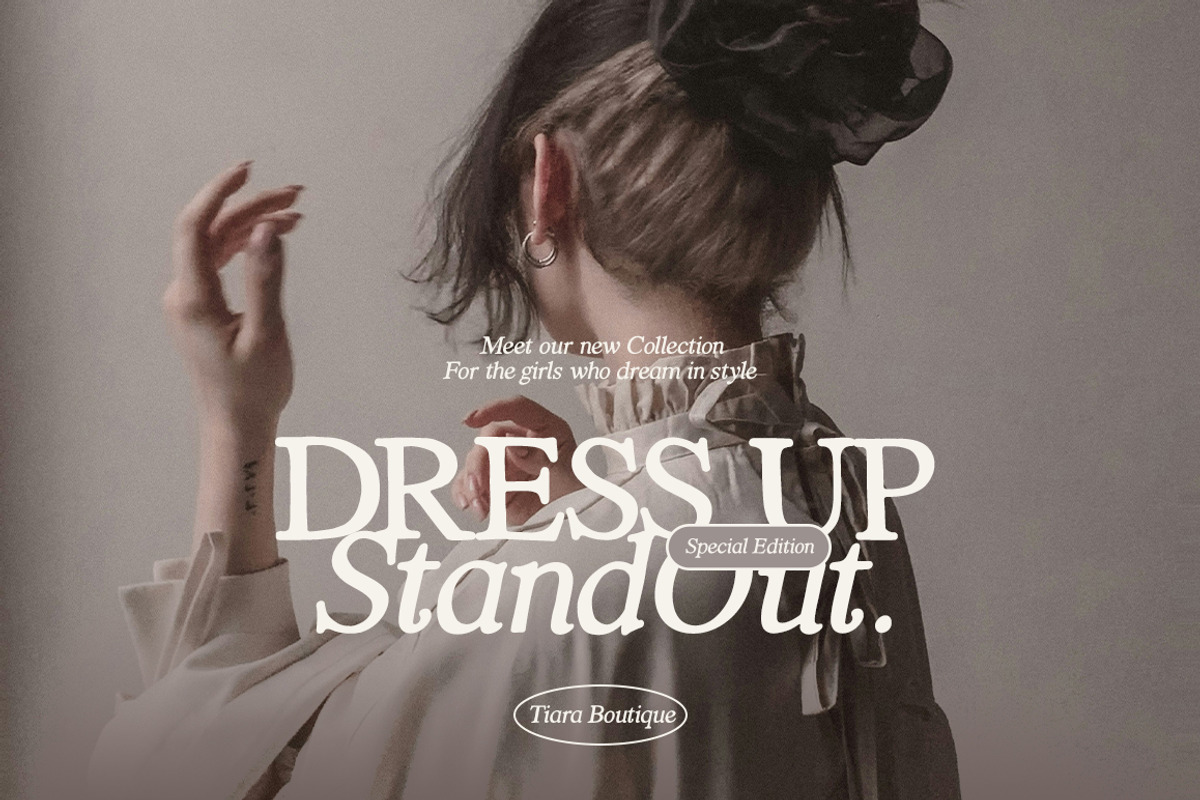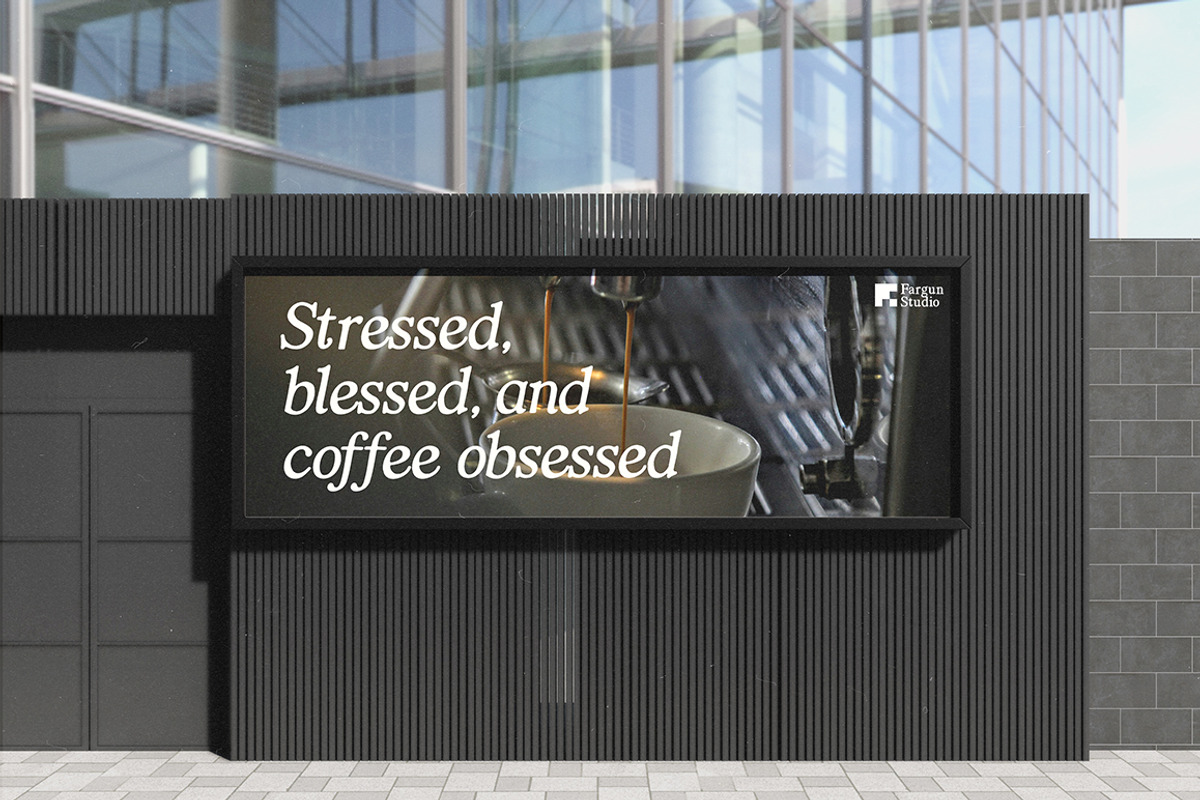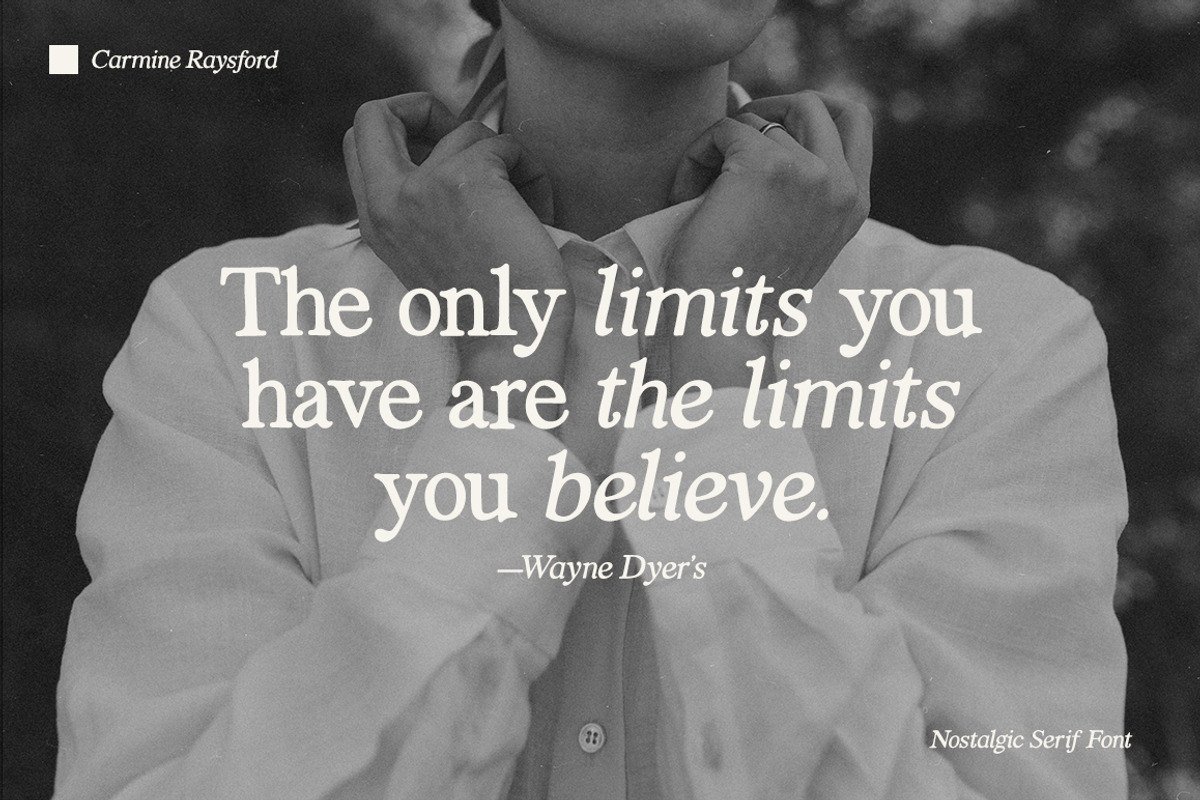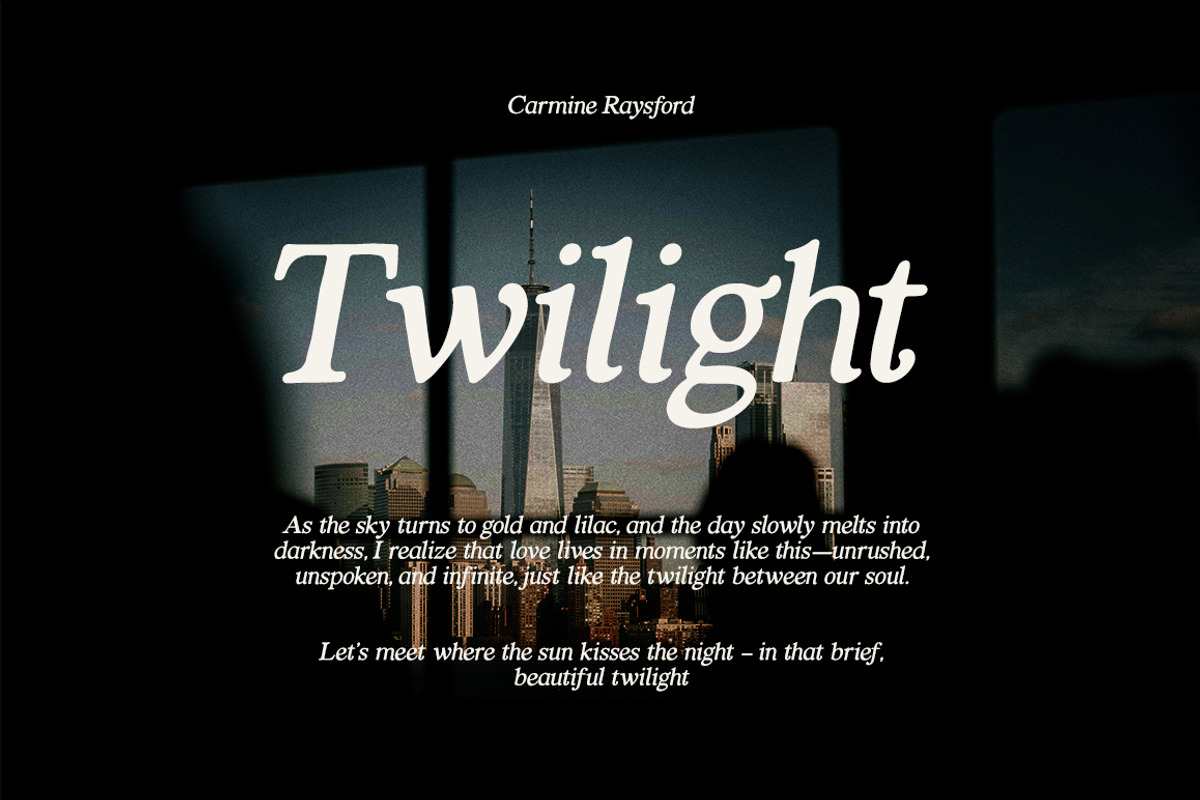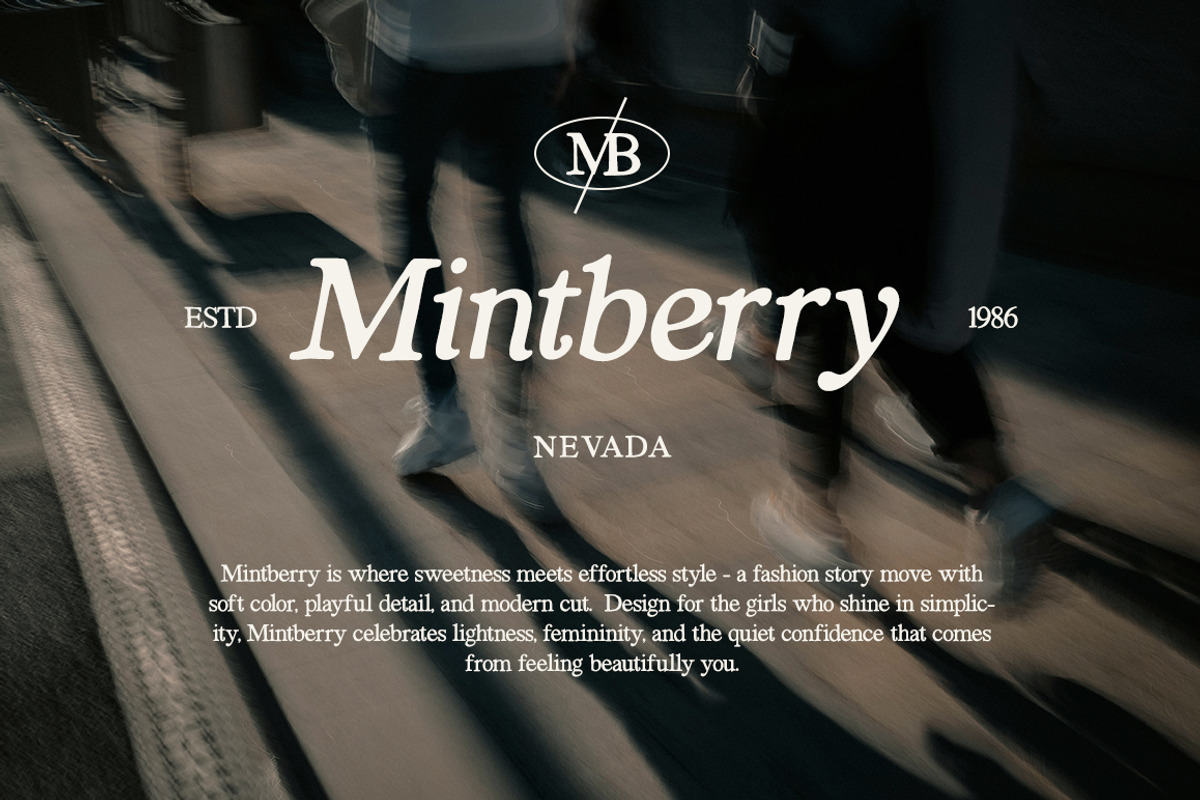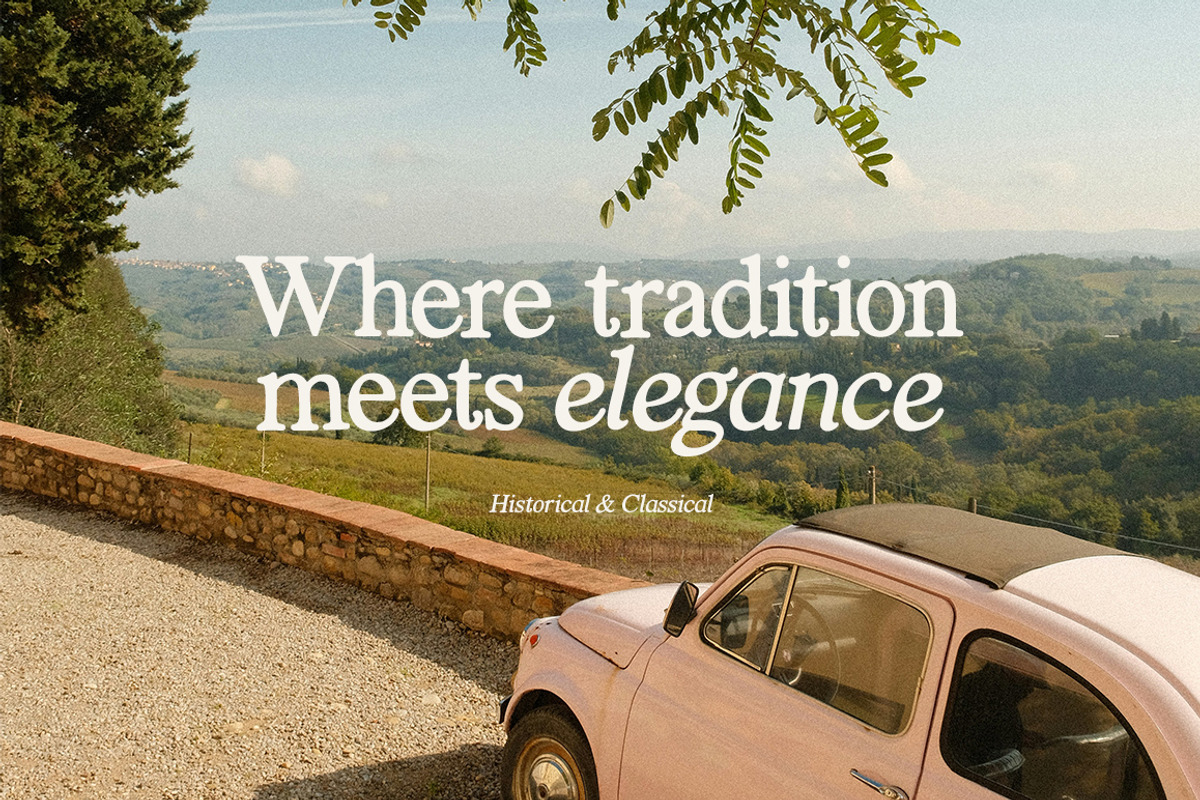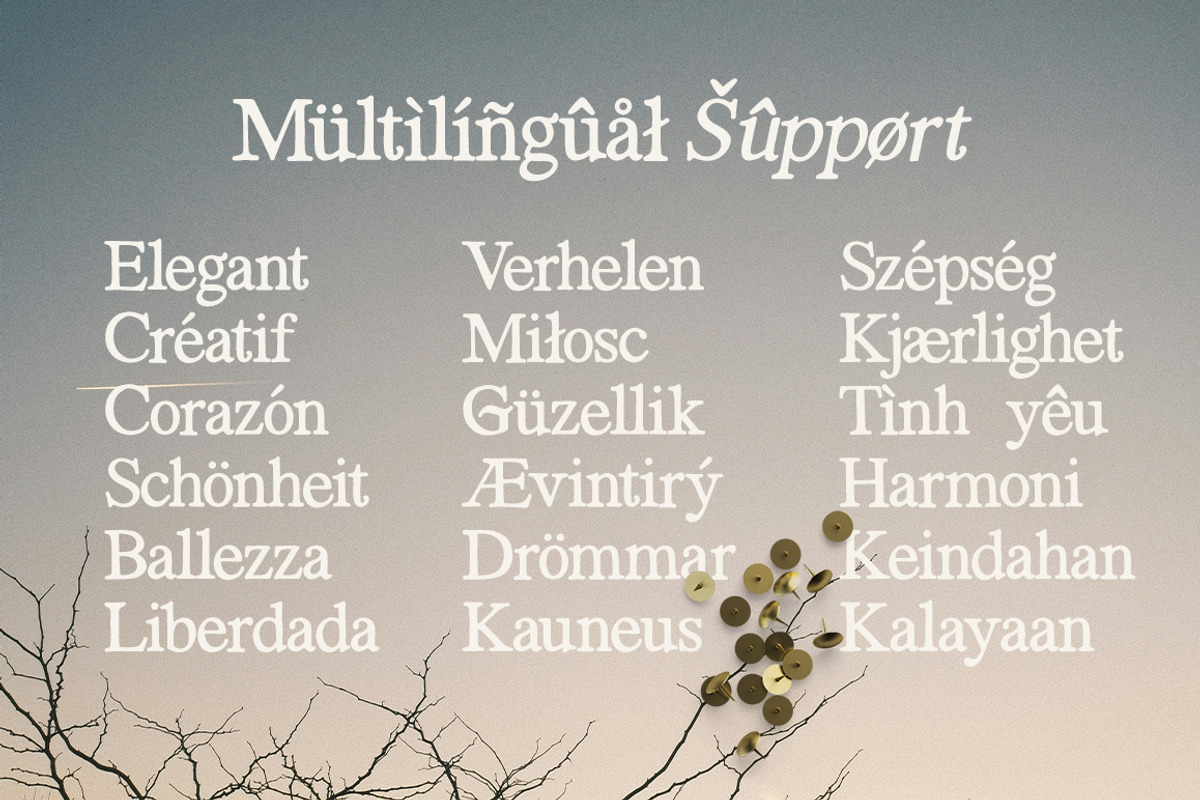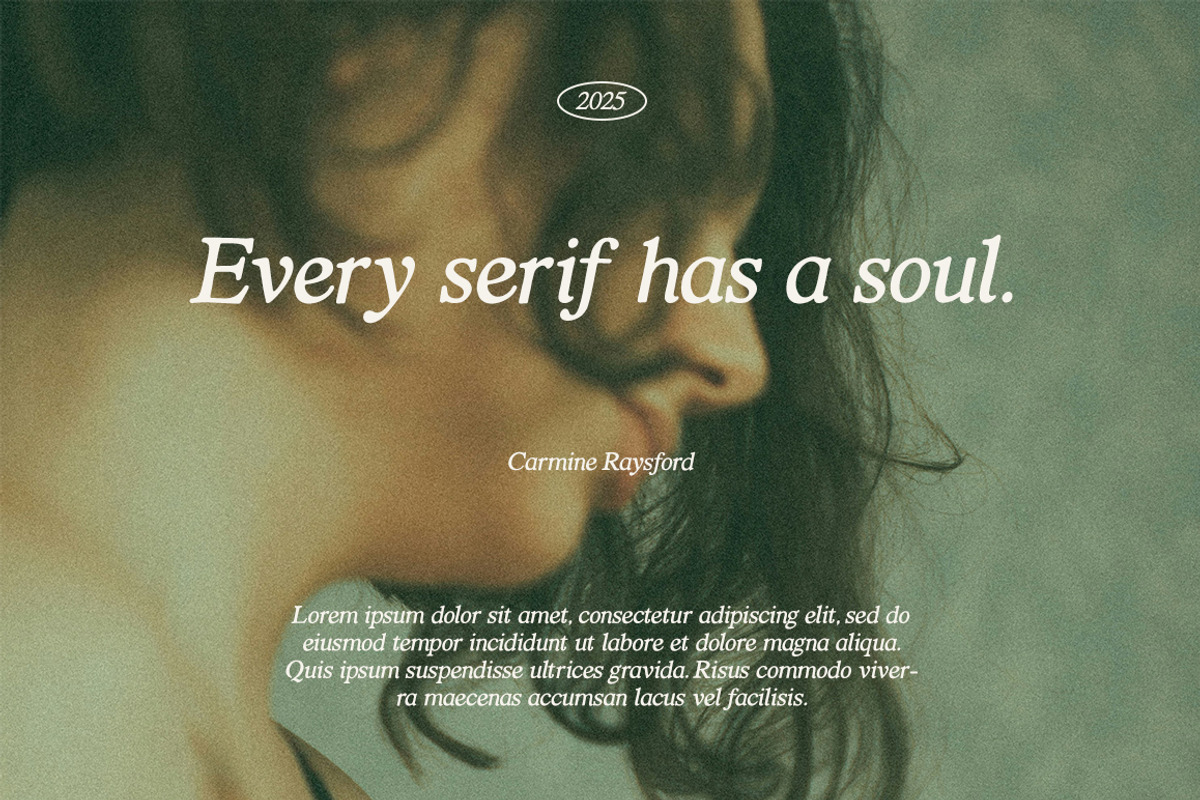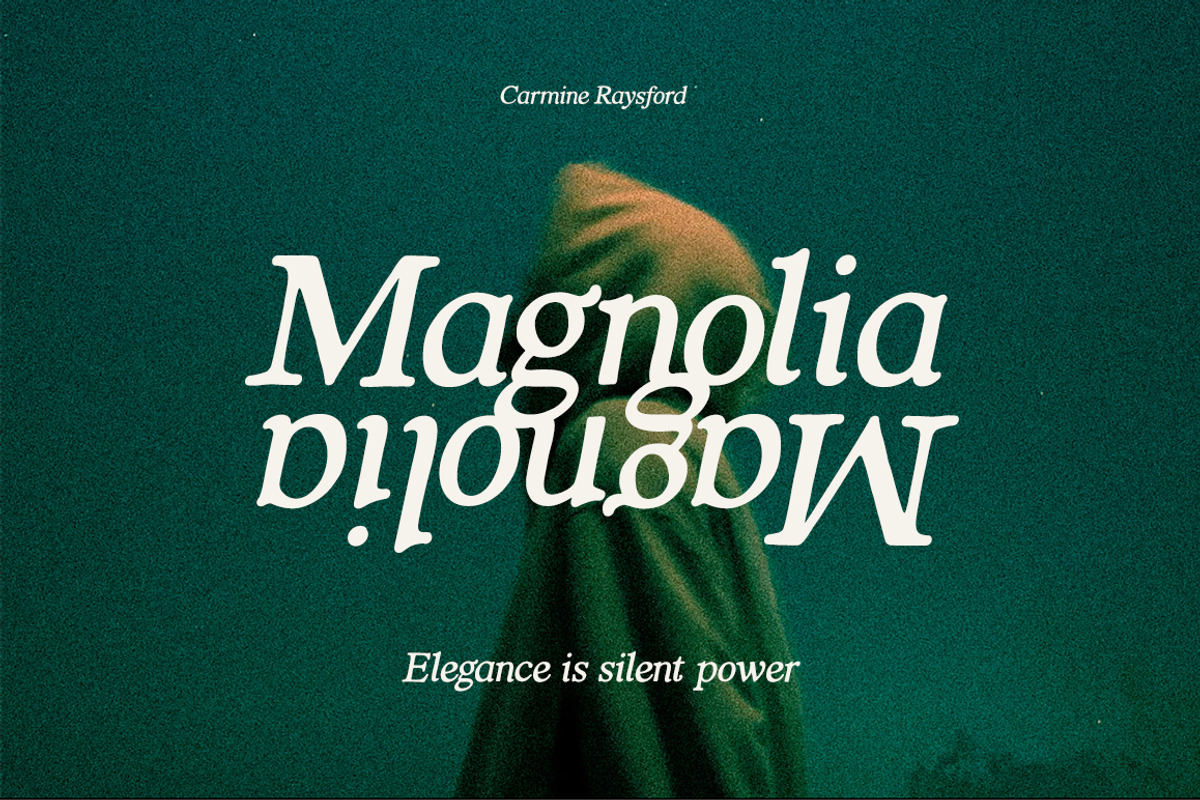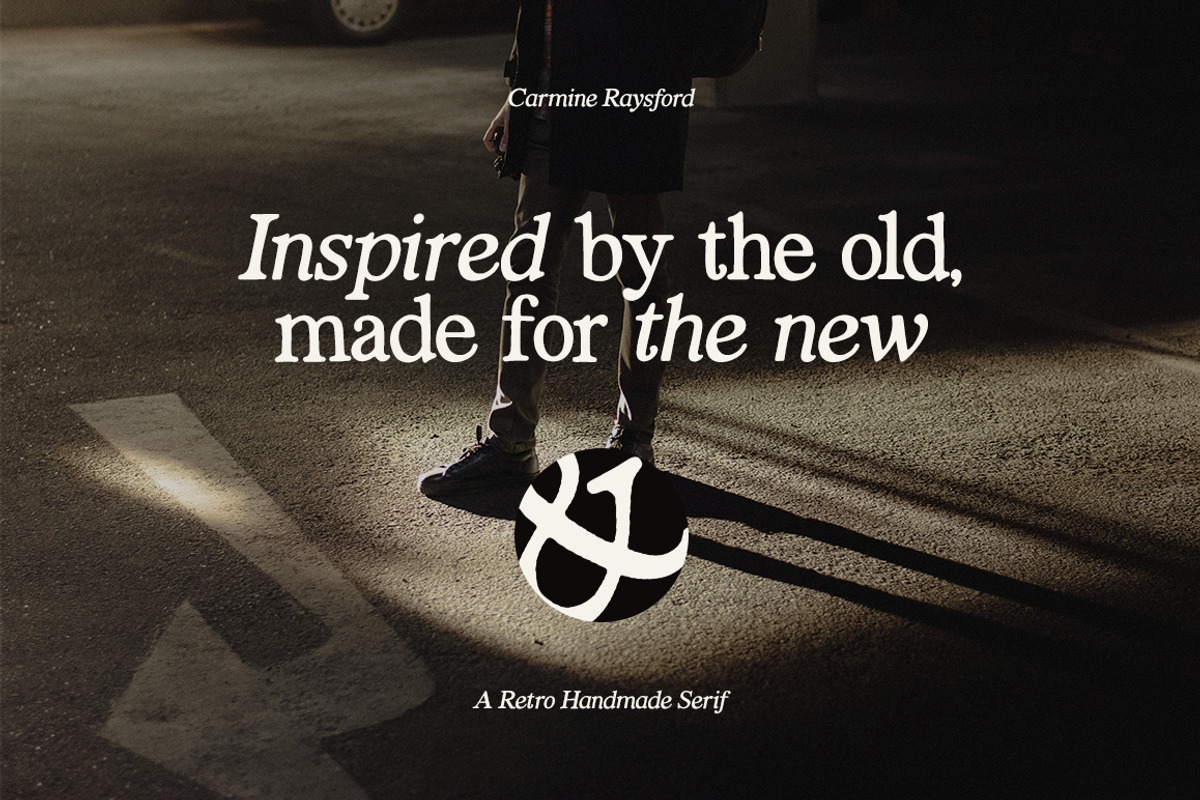
Carmine Raysford | Nostalgic Serif
Introducing Carmine Raysford A Brand-New Serif Typeface with All the Nostalgic Charm
Step into the golden glow of retro design with Carmine Raysford — a fresh take on the classic serifs that defined the 80s and 90s. As vintage typography makes a striking return, I was inspired to create a typeface that captures the essence of that iconic era — and Carmine Raysford is the result.
This elegant serif blends upper and lowercase characters in a design that feels both familiar and refined. Whether used as a bold display font for logos, headlines, or quotes — or as stylish body text — Carmine Raysford delivers timeless sophistication with a modern twist.
It’s perfect for projects that need a touch of nostalgia with a polished finish.